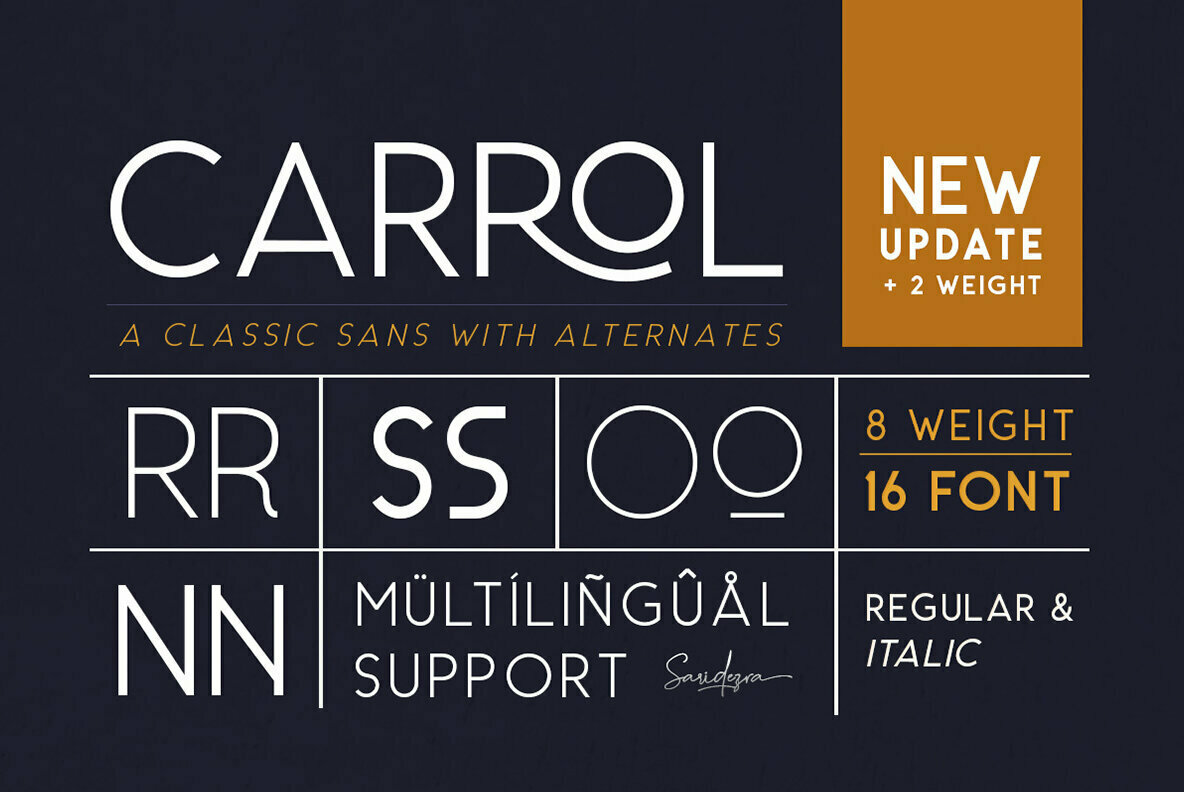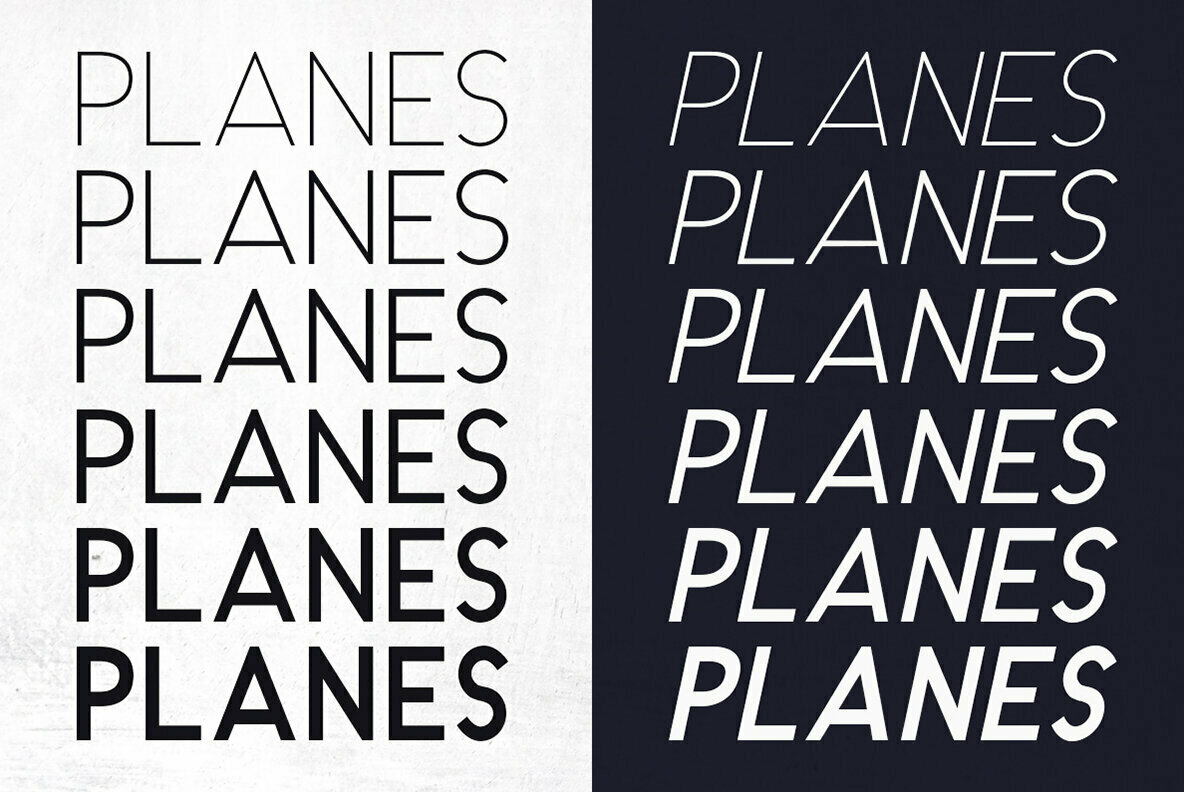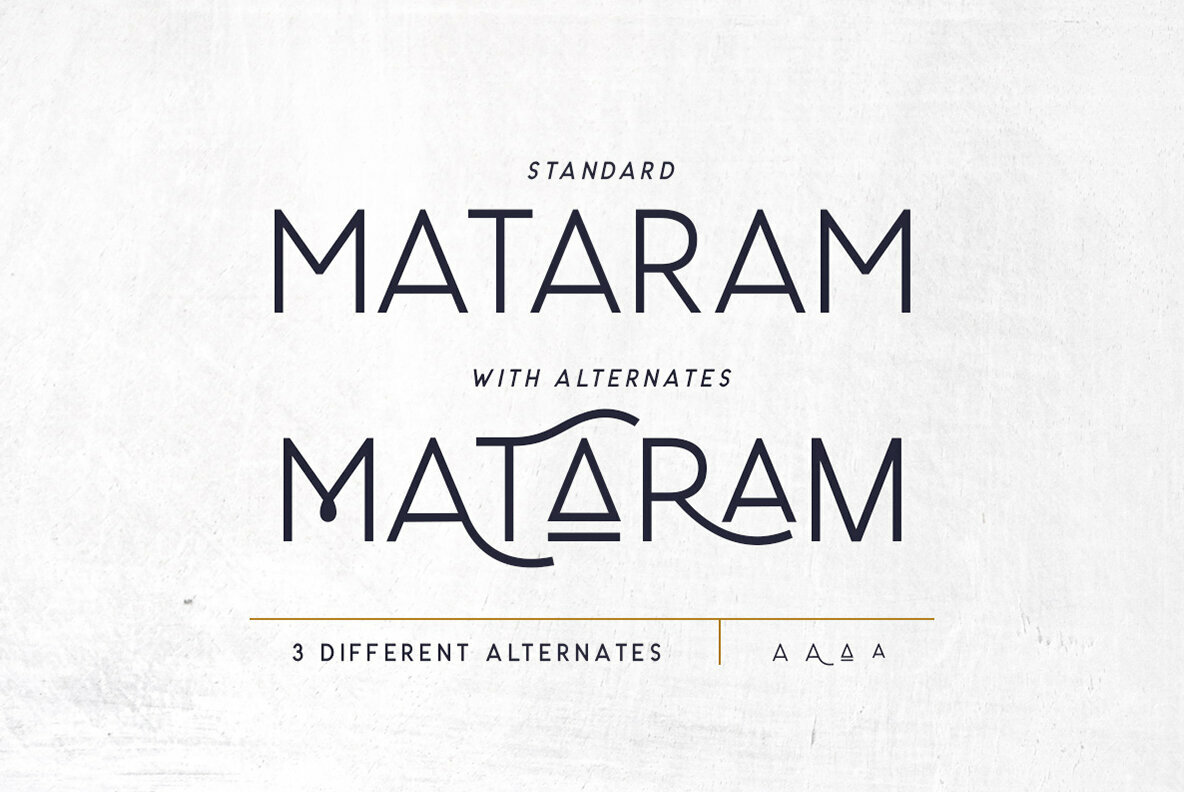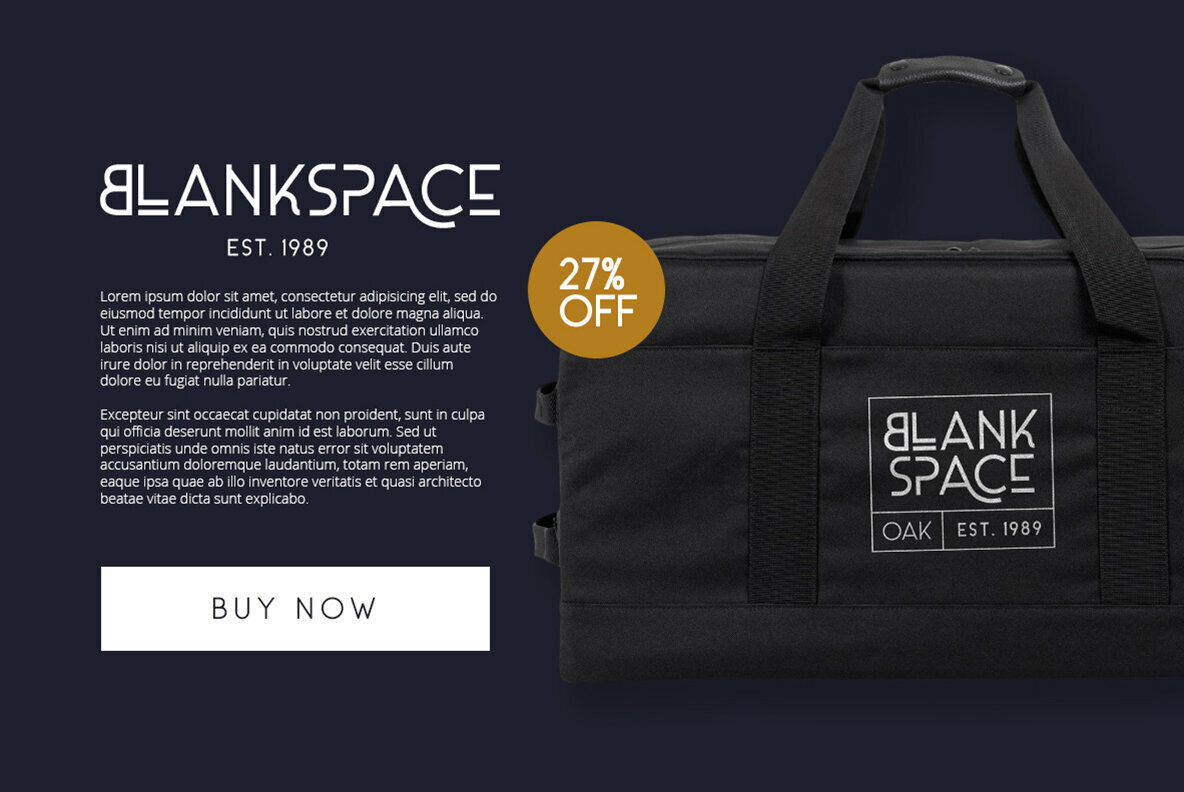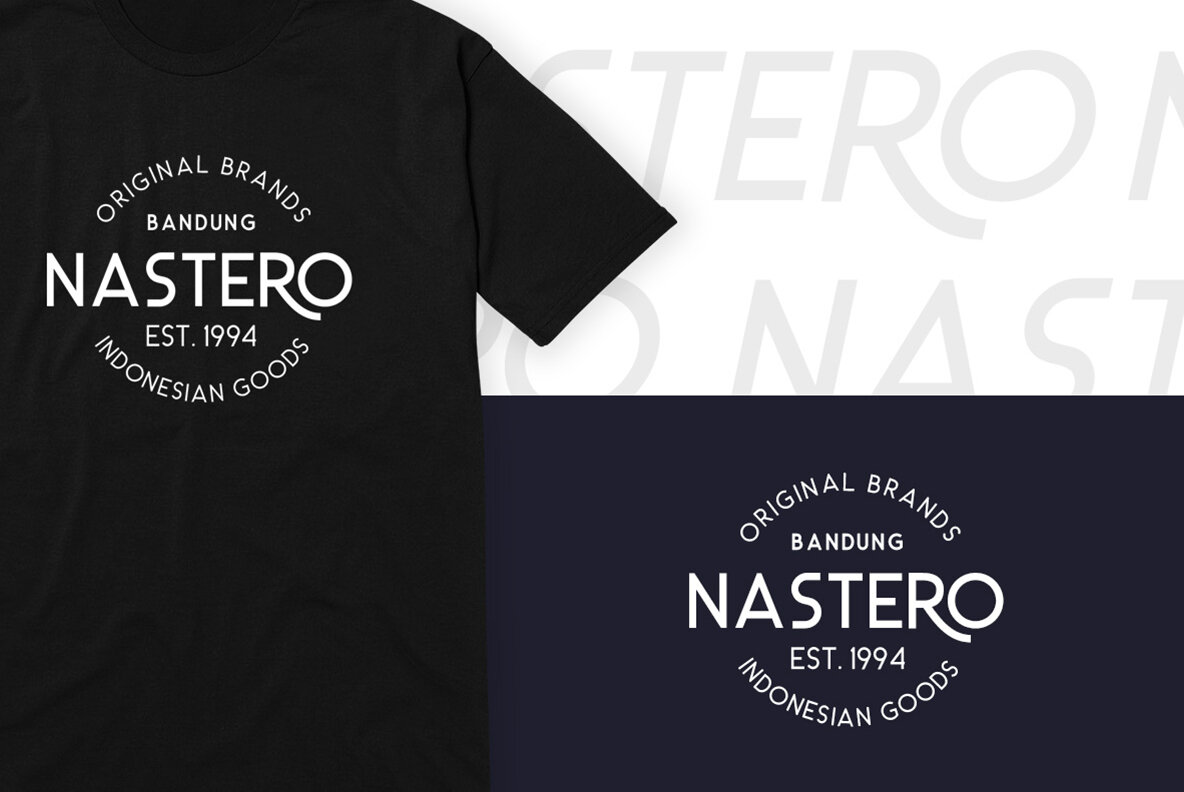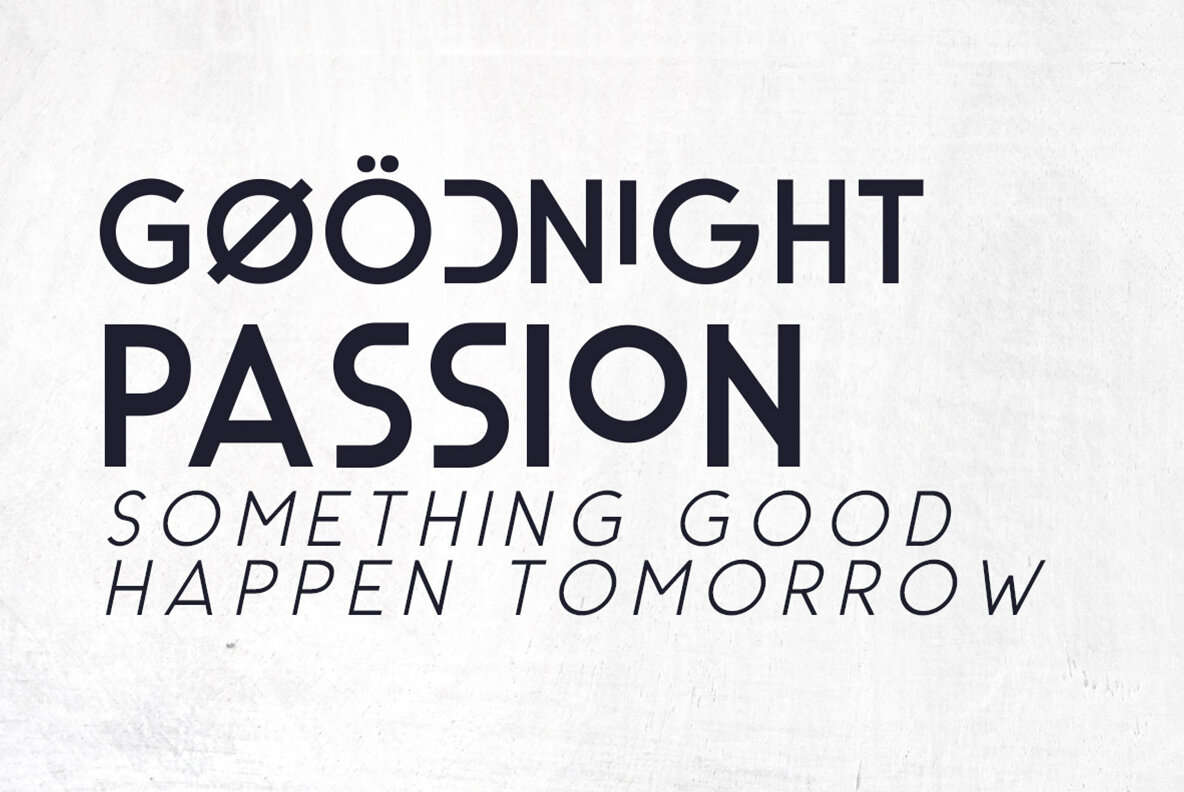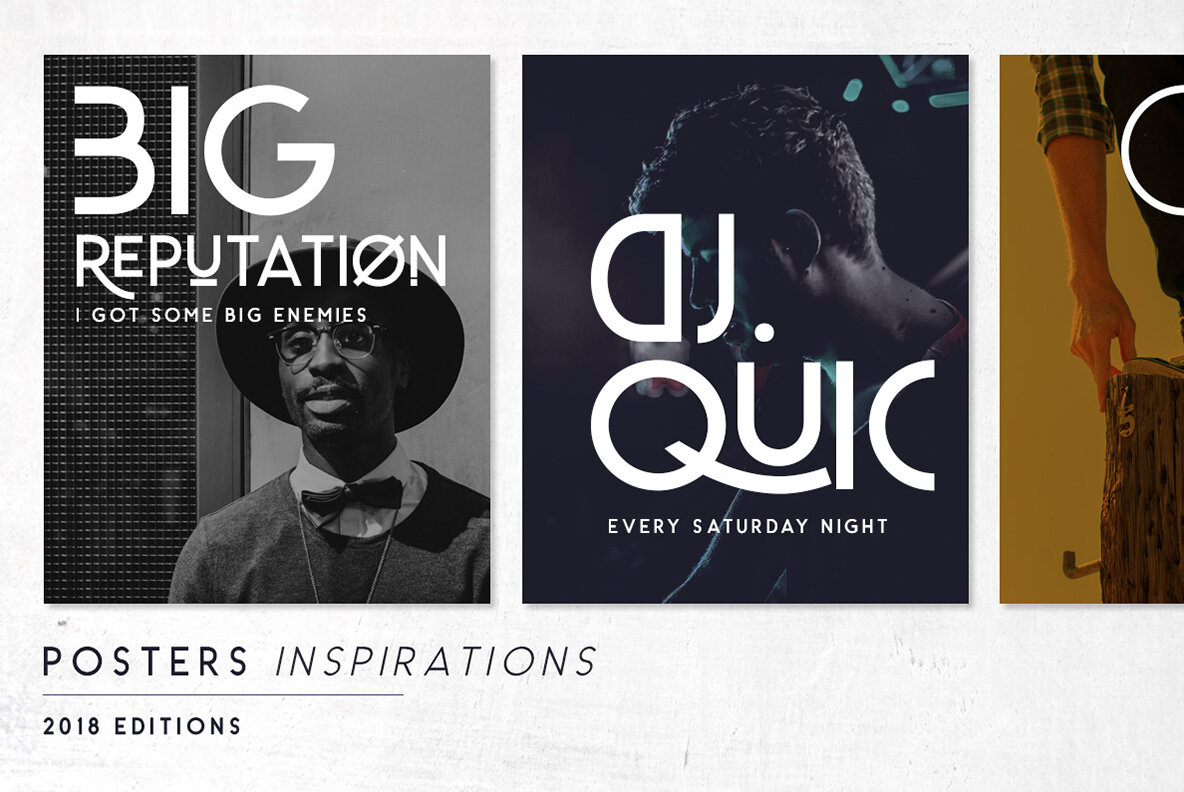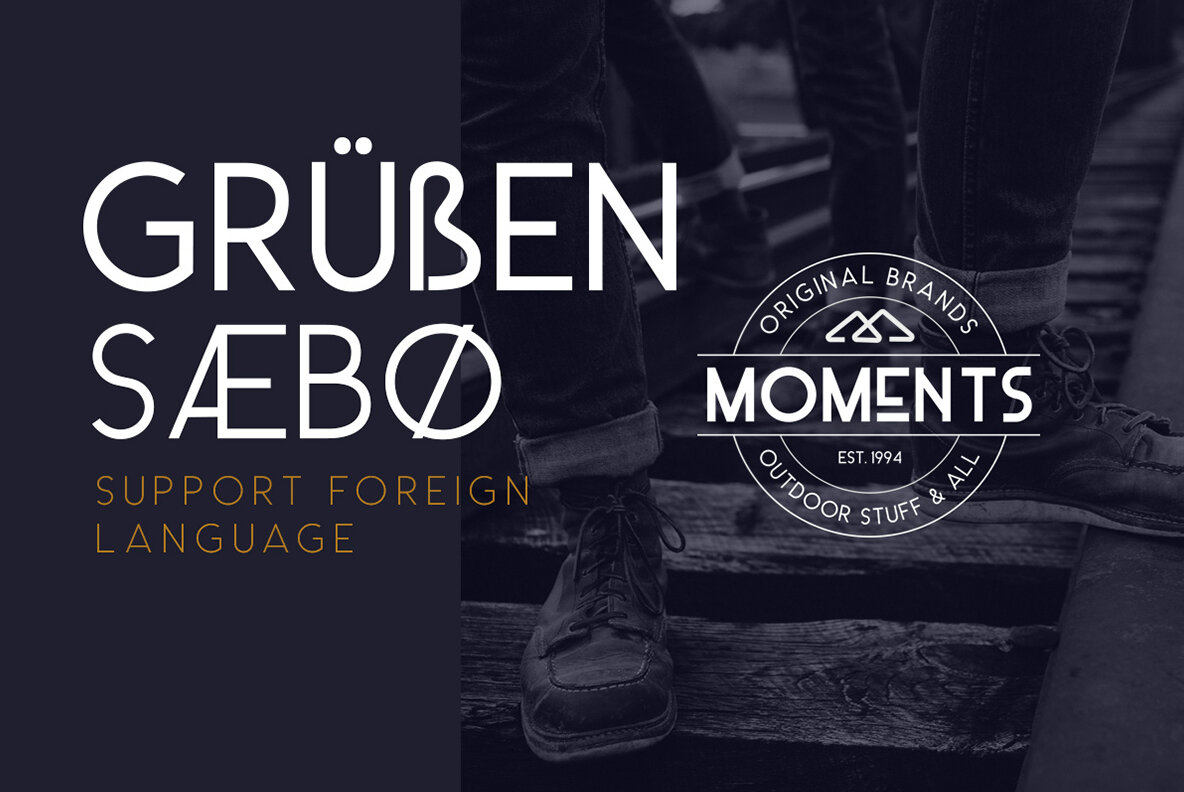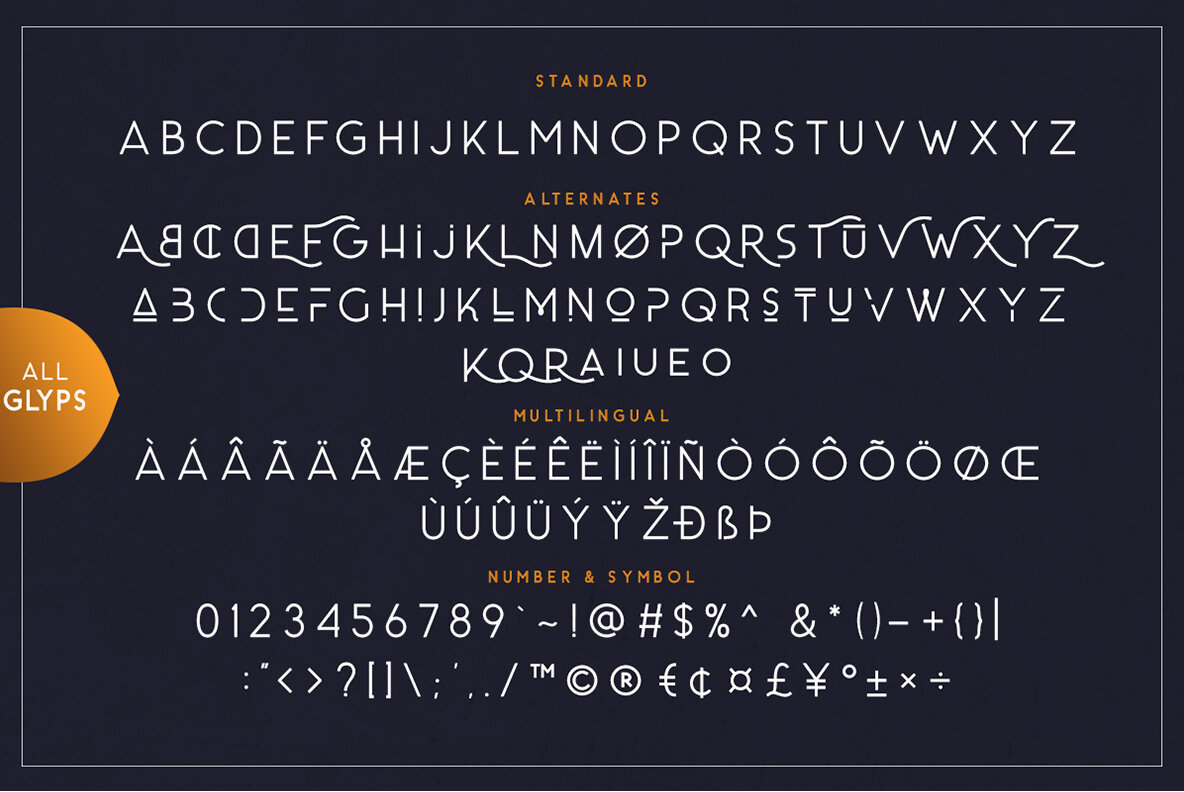
Carrol Font
Introducing My first sans font. Carrol, a classic sans with alternates! Carrol is a classic and modern sans with alternates in each alphabets! Every alphabet have alternates up to 3 kinds! This font fits in any project. You can use it for a tittle, logo, quotes, or become a pairing in any script font. This font also support multi language!